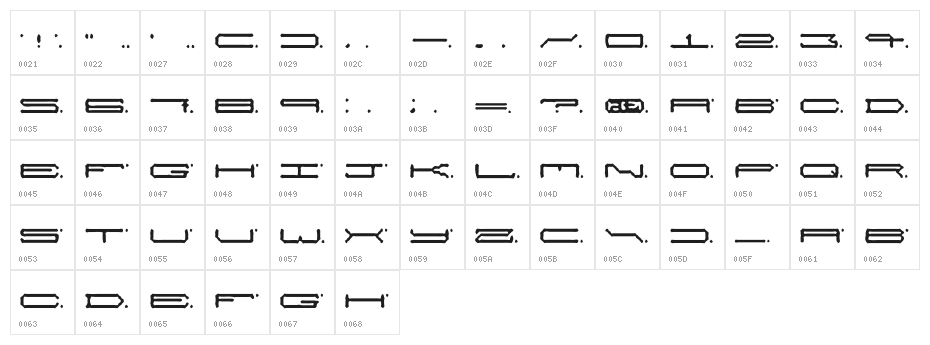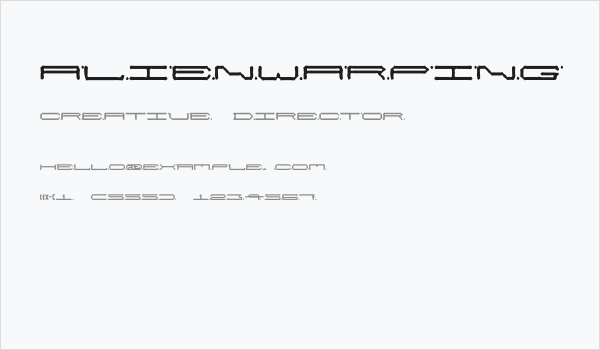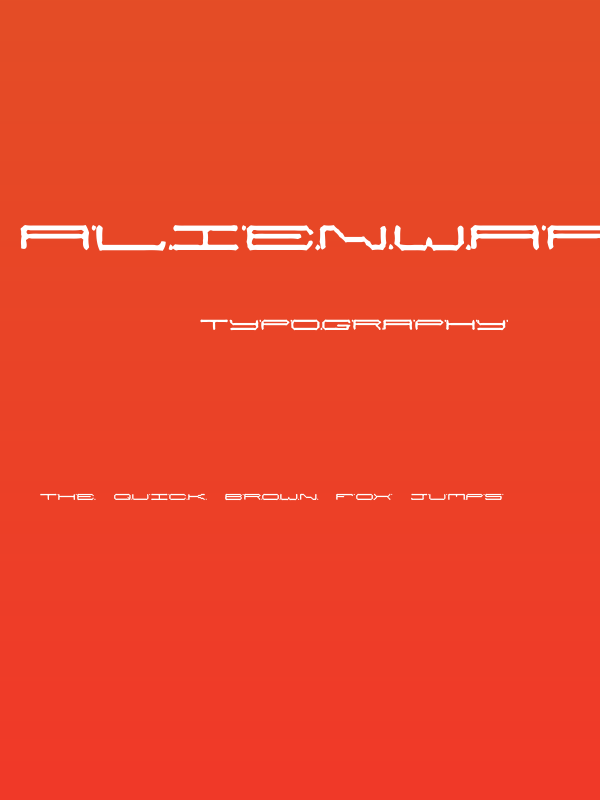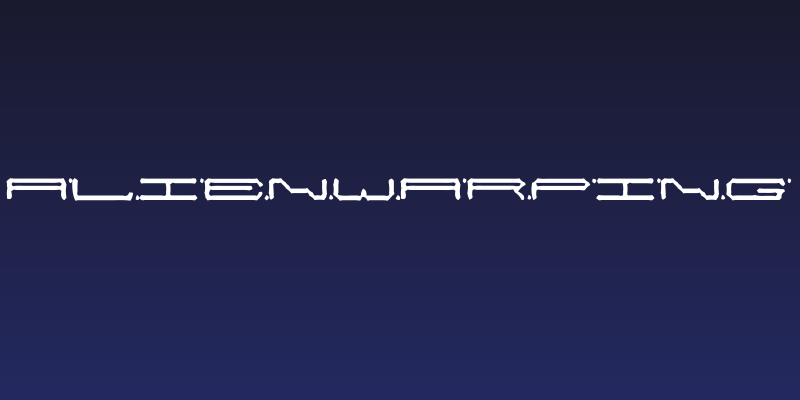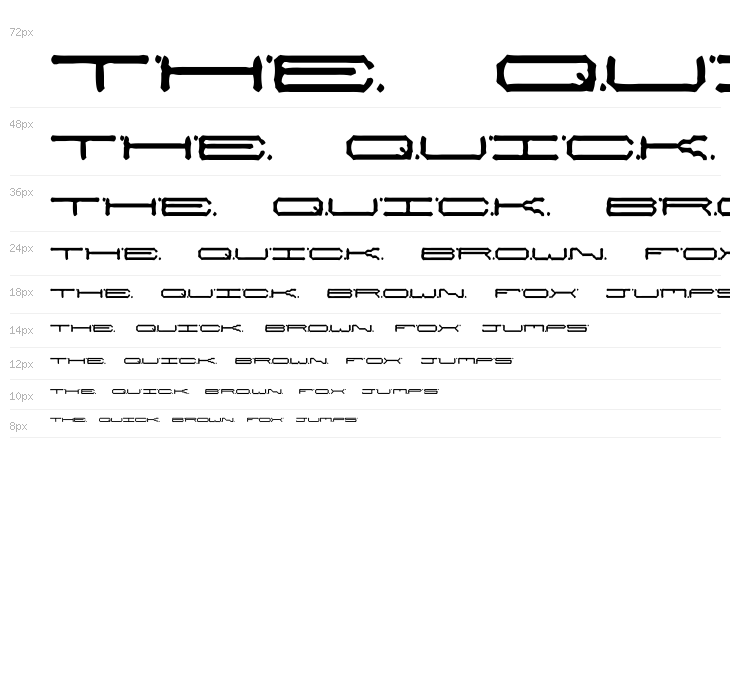
alienwarping Font
alienwarping Description
This font features a highly decorative and futuristic style, characterized by its unique and abstract letterforms. Each character is crafted with a series of geometric shapes and sharp angles, giving it a distinct and otherworldly appearance. The font maintains a consistent line weight throughout, with no variation in stroke thickness, which contributes to its uniform and cohesive look. The spacing between characters is tight, enhancing its compact and dense visual impact. This font is particularly suited for creative and avant-garde projects, where a bold and unconventional typeface is desired.
| Proposed Projects | Ideal for sci-fi themed designs, video game titles, movie posters, and digital artwork. |